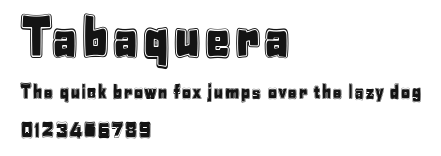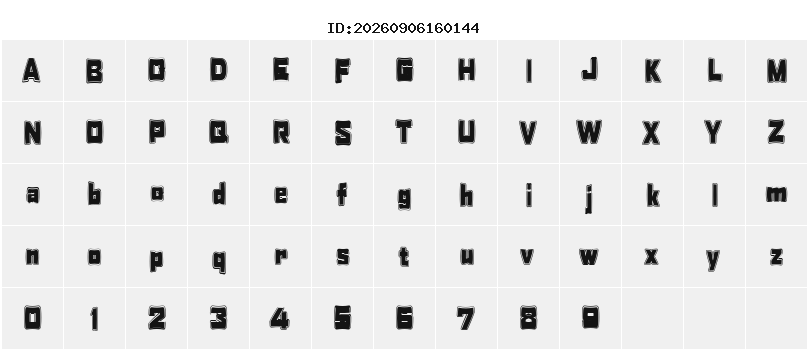
• Font Name: Tabaquera
• Font ID: deFharo: Tabaquera: 2013
• Full Font Name: Tabaquera
• PostScript Name: Tabaquera
• Designer: deFharo
• Manufacturer: deFharo
About Tabaquera.ttf
Tabaquera.ttf is a modern, elegant sans-serif font designed for ultimate readability and visual harmony. Perfect for branding, headlines, web design, and print materials.